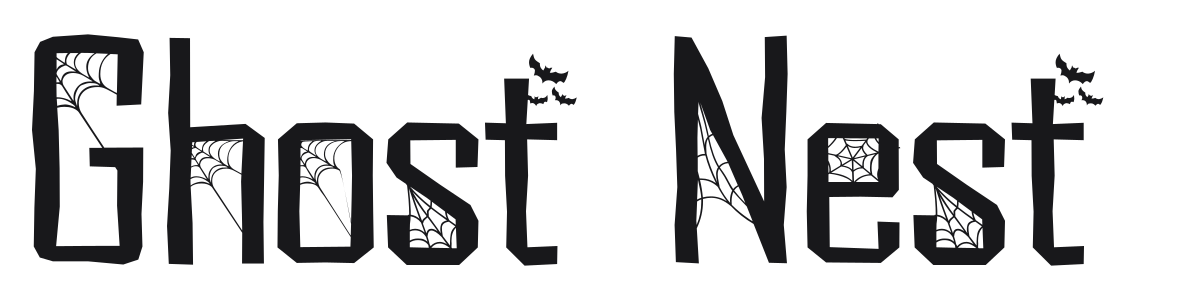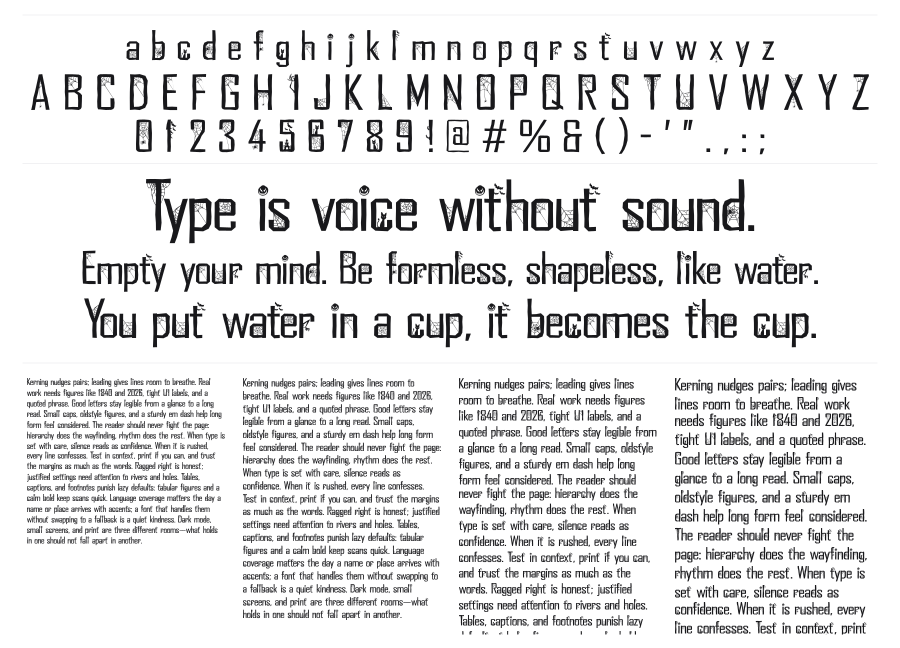
Ghost Nest
Ghost Nest is a bold Halloween display font with spiderwebs, bats, black cats, and jack-o'-lanterns woven directly into the characters. The heavy, blocky construction keeps things readable at large sizes while the illustrated details do all the seasonal storytelling. A strong choice for Halloween branding, event posters, and seasonal packaging.